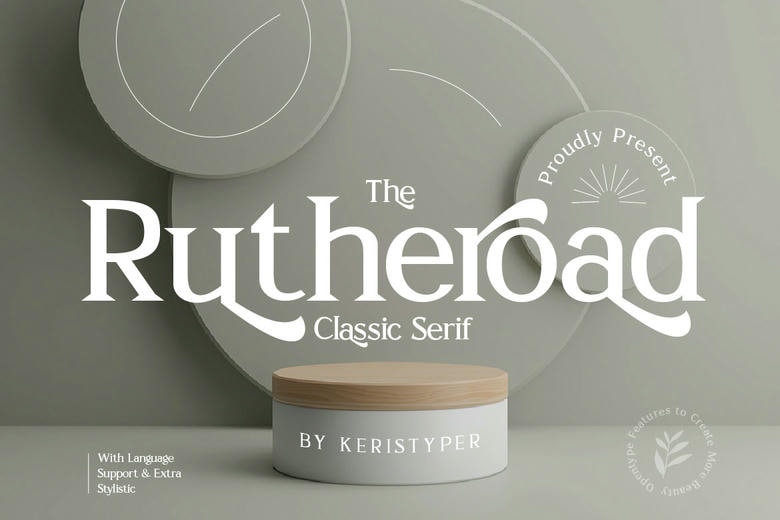
Rutheroad Font
Rotheroad is a classy/clean typeface, with a serif design that is a little minimal/mode contemporary. It is perfect for logotype, headline text, in corporate/brand design, fashion, posters, music, movies, games, magazines, books, comics, cartoons, YouTube, Instagram, websites, or any of your graphic designs.
Rutheroad Serif Font